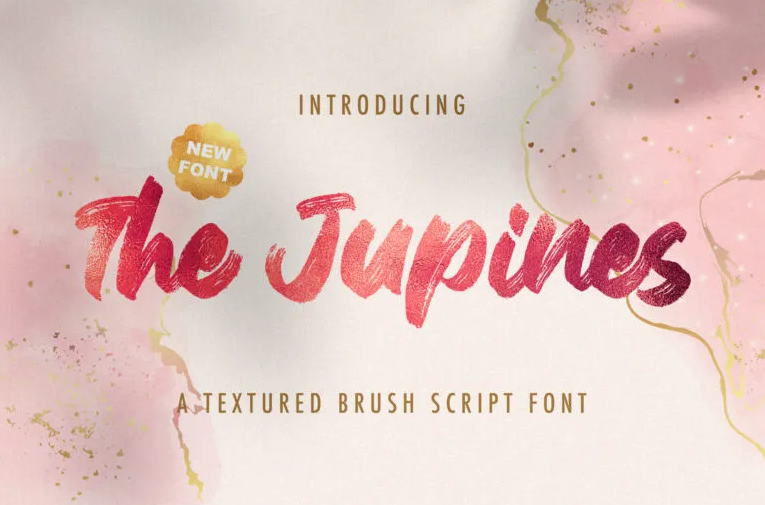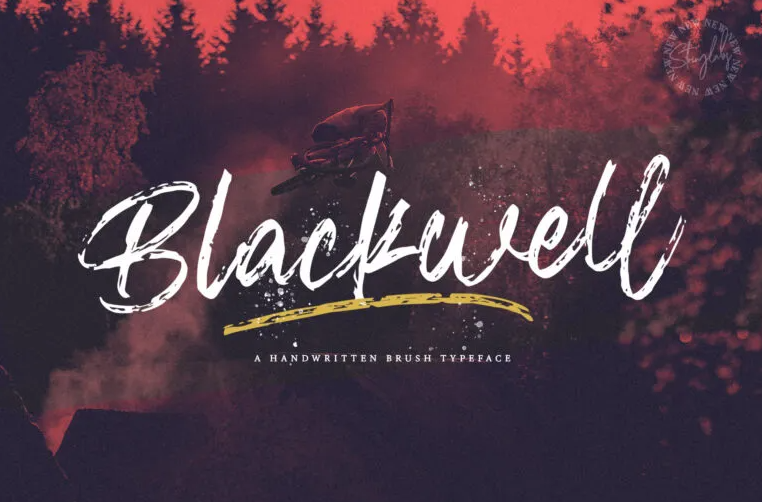
Meet 20 Best Brush Fonts for Captivating Designs!
In the typography world, the best brush fonts gain tremendous popularity for their unique and artistic appeal. Whether designing a logo, crafting a poster, or creating eye-catching social media graphics, the brush font best selection can add a touch of elegance and personality to your work.
Today, we’ll explore 20 of the best font brush style, each offering its own distinctive style and charm. Let’s dive in and discover the best brush font to enhance your next design project!
Best Brush Fonts in a Glimpse
Brush fonts are typefaces that mimic the appearance of text created with a brush or paintbrush. They have irregular edges and varying stroke widths, resembling handwritten characters.
Brush fonts add a personal, artistic touch to designs and are famous for logos, posters, and social media graphics. Moreover, they come in different styles, conveying creativity, energy, and an organic aesthetic.
Dive into 20 Best Brush Fonts
Without further ado, discover the most enchanting best front brush style below:
1. Mythical Glorious
Unleash the power of creativity with Mythical Glorious, a spellbinding best-brush font that brings forth a world of mythical wonder.
2. Ping Typeface
Ping Typeface is where artistry comes to life! Each letter bursts with dynamic strokes, capturing the raw energy of hand-lettering.
3. Jeany Gifary
Discover Jeany Gifary, the textured brush font that brings captivating charm and depth to your designs. With rustic brushstrokes and organic imperfections, it adds a tactile feel, breathing life into your typography.
4. Angelicy
Angelicy has captivating texture and depth. Let each celestial-inspired letter, crafted with intricate brushwork and delicate imperfections, angel font makes elevate your typography to new heights.
5. Zenghief
Experience the essence of free-spirited creativity with Zenghief. Its rugged edges and daring flair add rebelliousness and authenticity to any project.
6. Raffles Bryant
Experience the captivating allure of Raffles Bryant as your words come alive with an enchanting one of the best brush fonts texture.
7. Ronald Charis
Ronald Charis adds depth and character to your designs, each letter tells a story, meticulously crafted to evoke a sense of raw artistic expression.
8. Jasmine Daily
Like a whimsical dance of letters, Jasmine Daily adds a playful and lighthearted vibe to any project. Whether you’re designing greeting cards, children’s books, or eye-catching posters, this font will infuse your typography with a sense of joy and imagination
9. Rantting Tjinta
Allow the captivating charm of Rantting Tjinta to enchant your viewers, as each brushstroke of this elegant script font exudes grace and sophistication.
10. Pomthinq
A brush font is best to unleash a burst of creativity onto your designs. Just like a skilled artist wielding a brush, Pomthinq gracefully glides across the canvas of your typography, imbuing it with an energetic and expressive vibe.
11. Blackink
Inspired by street art and graffiti, Blackink captures the raw energy and rebellious spirit of the streets. Infuse your designs with an urban flair that captivates attention, courtesy of Blackink.
12. Parakan Brush
Parakan Brush is one of the best brush fonts that exudes boldness and artistic flair. Inspired by the expressive strokes of a brush, Parakan Brush adds a touch of creativity and dynamism to your design.
13. Vagnotie
It is a modern brush font that embodies contemporary elegance and artistic expression. With its sleek and refined brushstrokes, Vagnotie brings a touch of sophistication to your designs.
14. Candy Qelling
Experience the sweet charm of Candy Qelling, a brush script font that adds delightful whimsy to your designs with playful font and energetic brushstrokes.
15. I am Cool
Embrace the trendy essence of I am Cool, a brush script font that brings a contemporary and self-assured feel to your designs with its stylish brushstrokes.
16. Anttariksa
Experience the artistic allure of Anttariksa, a brush script font that brings captivating energy to your designs.
17. Fany Brush
Embrace the artistic appeal of Fany Brush, a textured brush font that showcases expressive brushstrokes and organic charm in every meticulously crafted letter.
18. Blackwell
Blackwell is a textured brush font that brings a bold and edgy feel to your designs with expressive brushstrokes and a raw aesthetic.